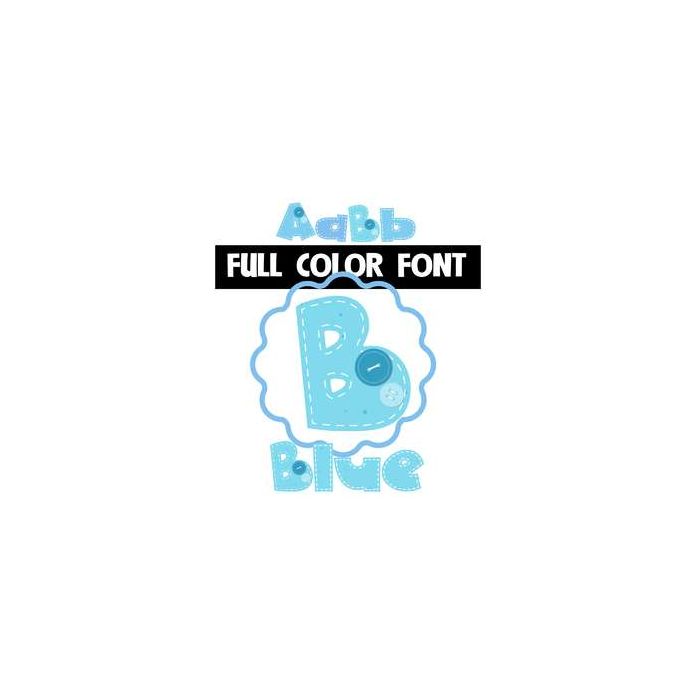
This full color font features buttons on a blue uppercase. The numbers have been replaced with frames. An alt uppercase sans bows as well as real numbers are available through your system's character map. This font works best for titles, displays, posters and more. Please note color fonts will show as black in non compatible programs. This font type is compatible with Silhouette Studio.